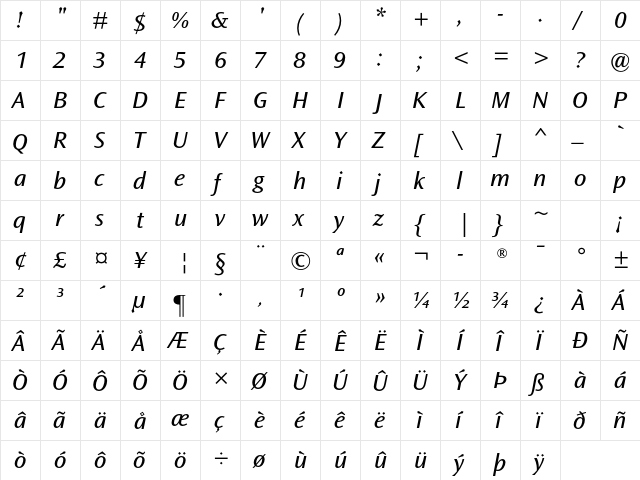
Ocean Sans Std Book SemiExtended Italic
| Designer | Chong Wah |
Design Context for Ocean Sans Std Typeface
Ocean Sans Std is a composed and adaptable typeface that performs quietly and consistently across a wide range of design contexts. The dynamic lean of this cut emphasises speed and emphasis in any layout.
Pro Tip: Use Ocean Sans Std for emphasis, pull quotes, and subheadings where its slanted energy can add rhythm to the layout.